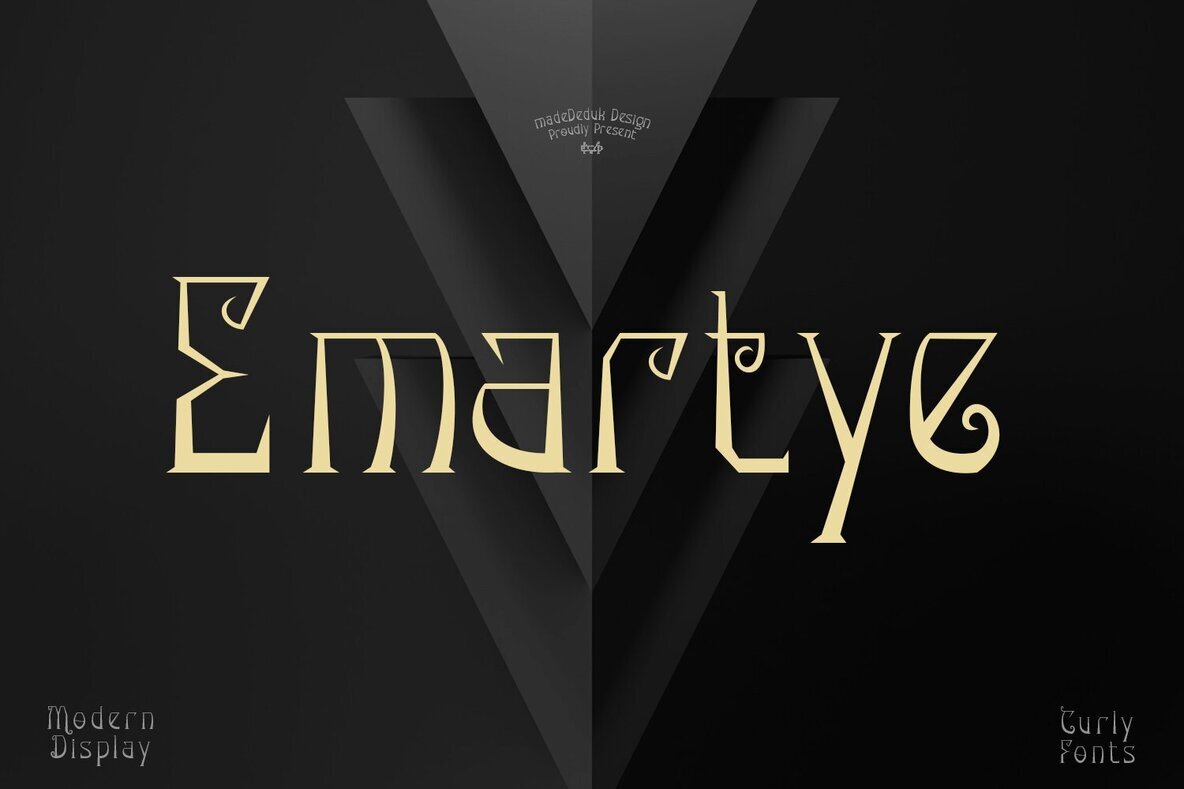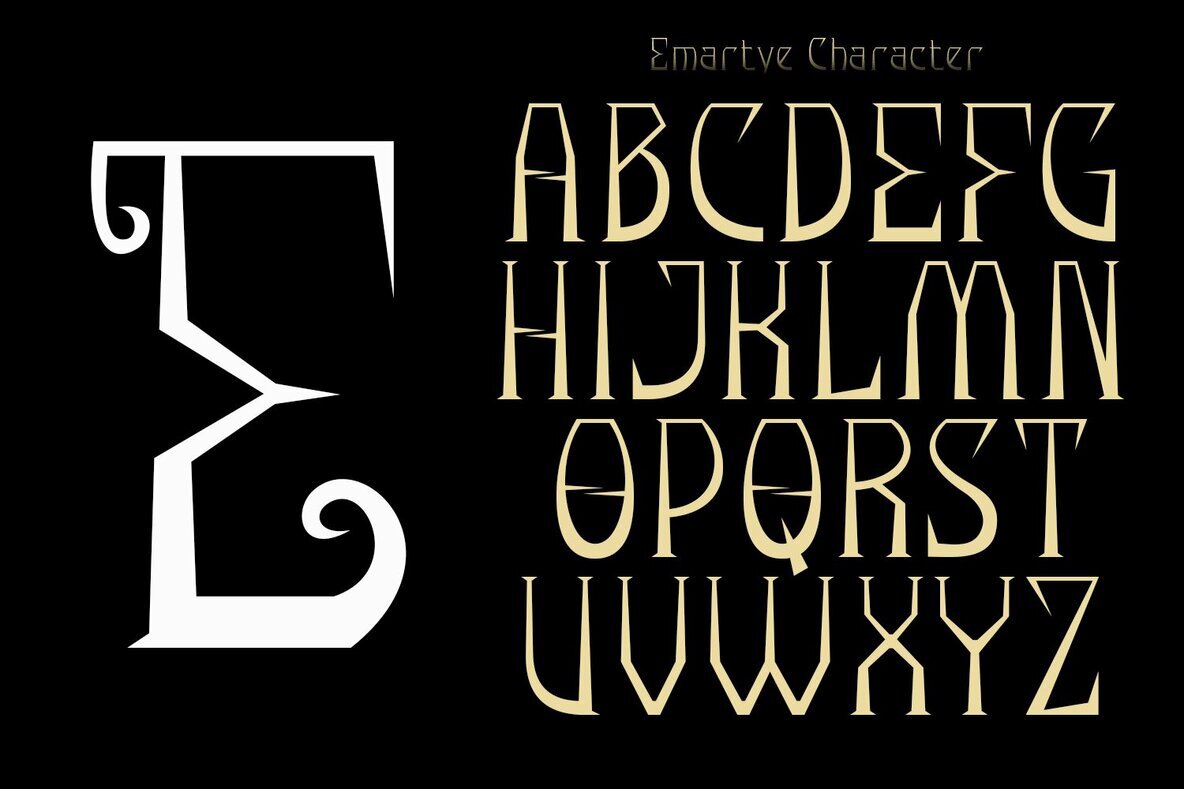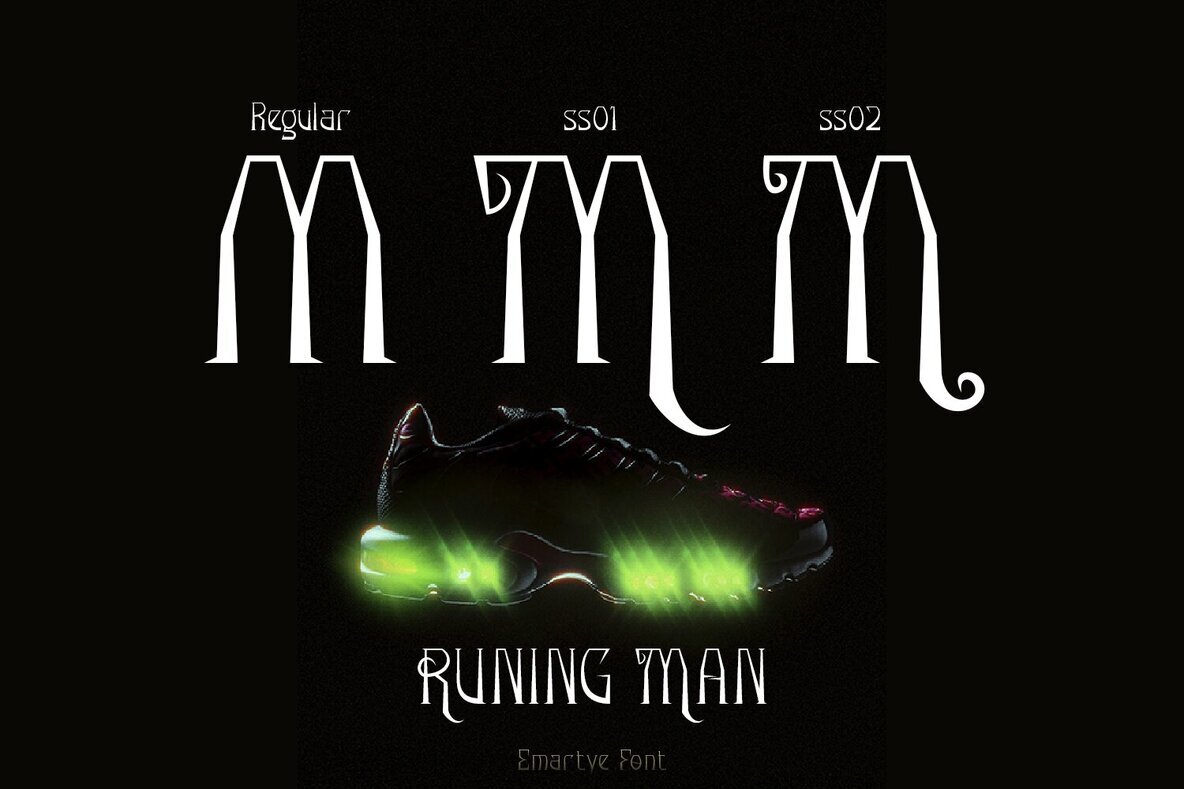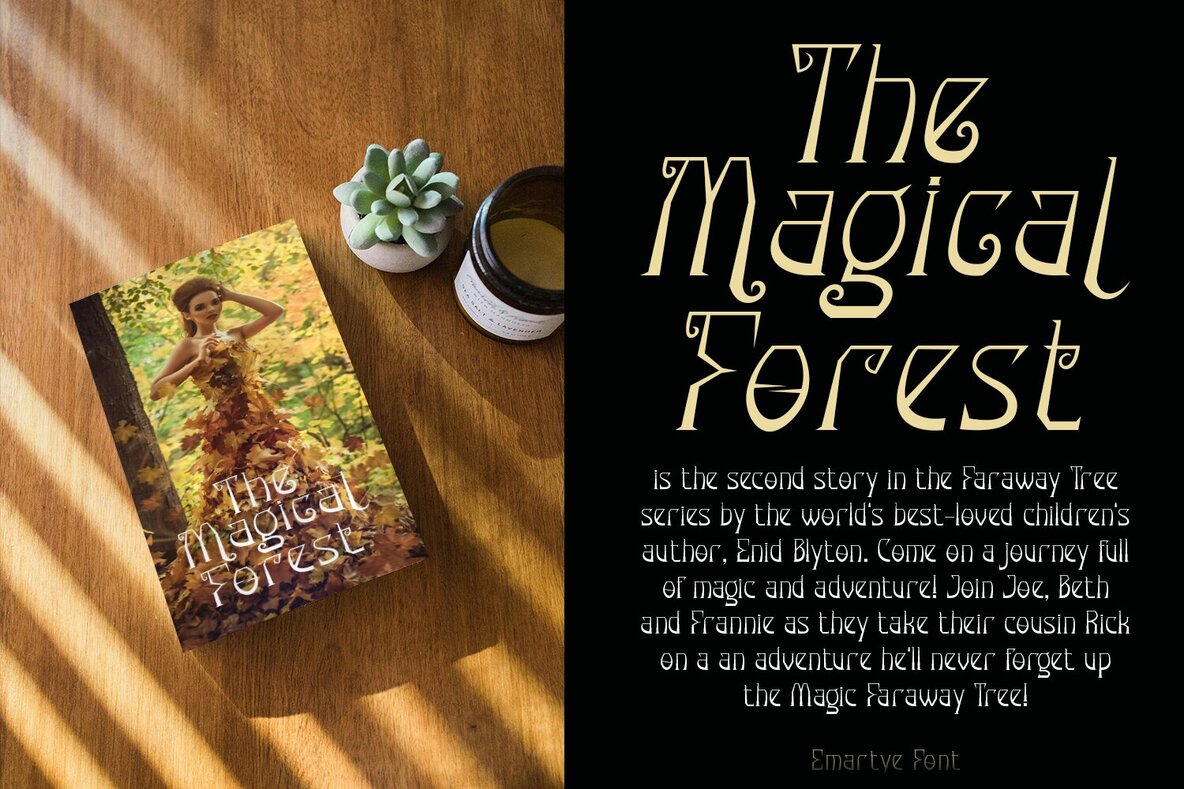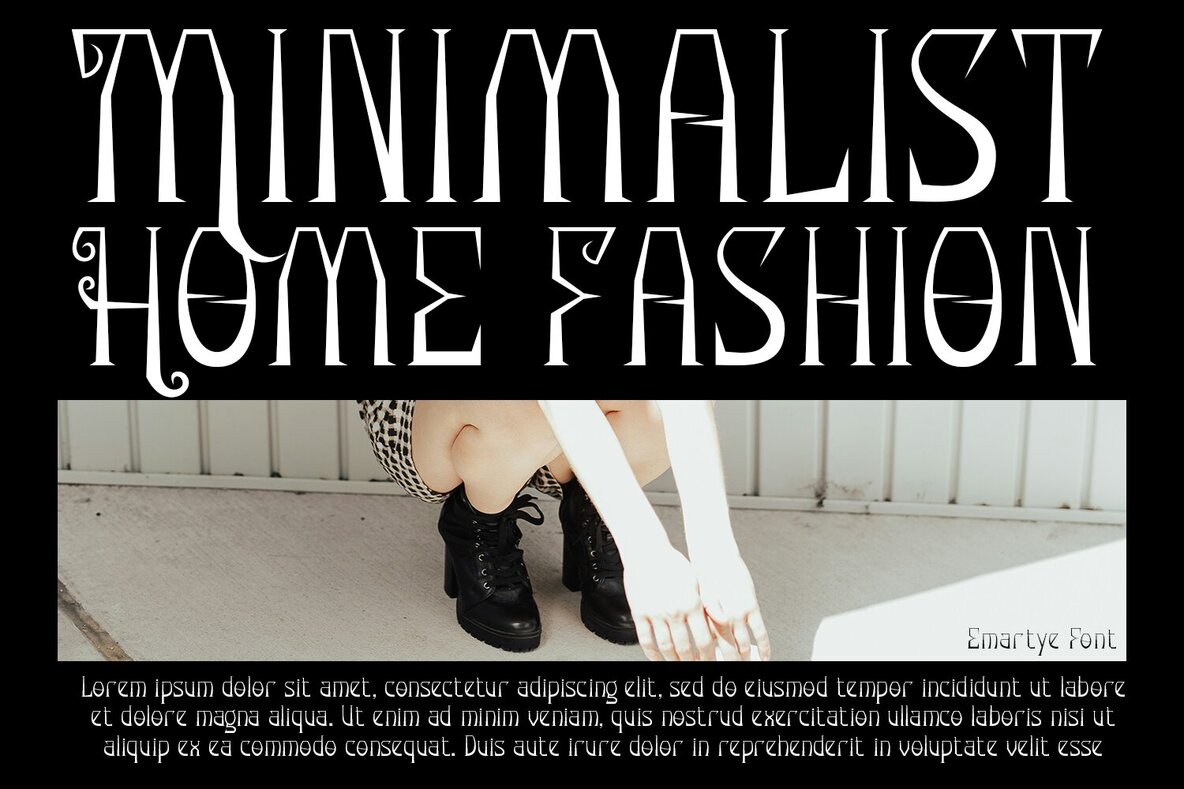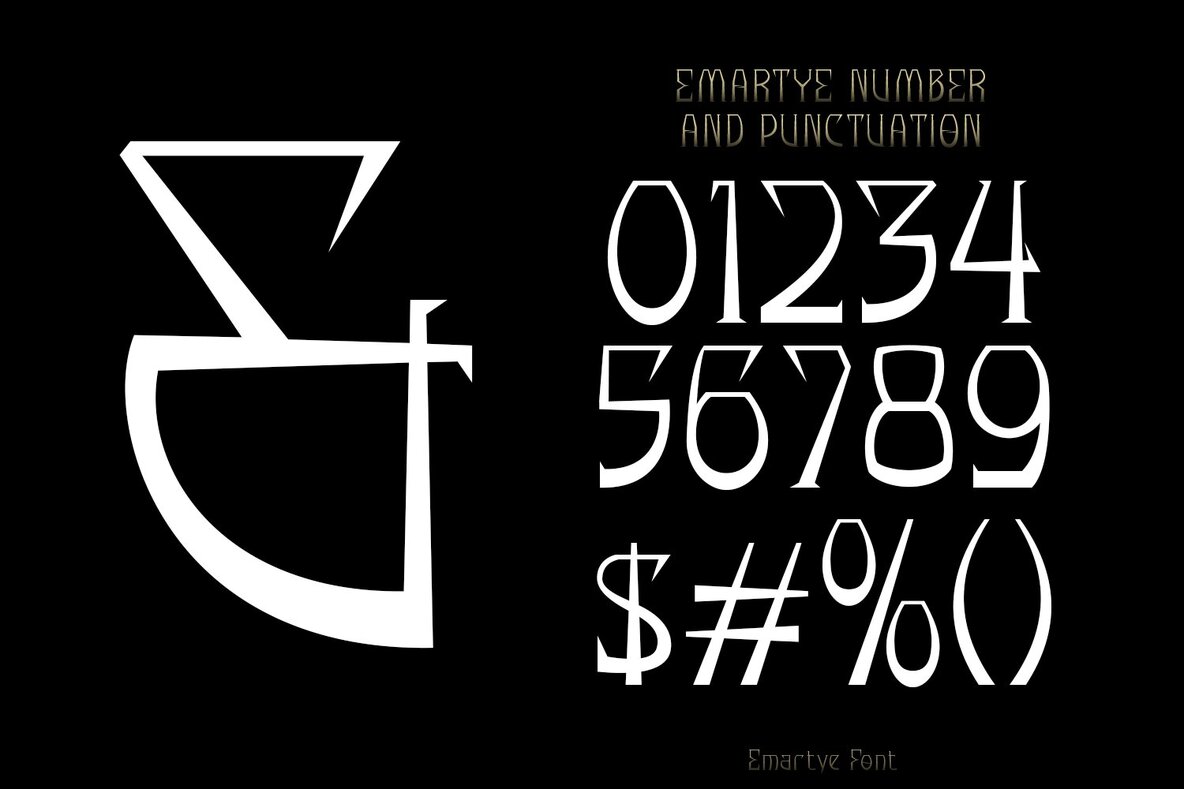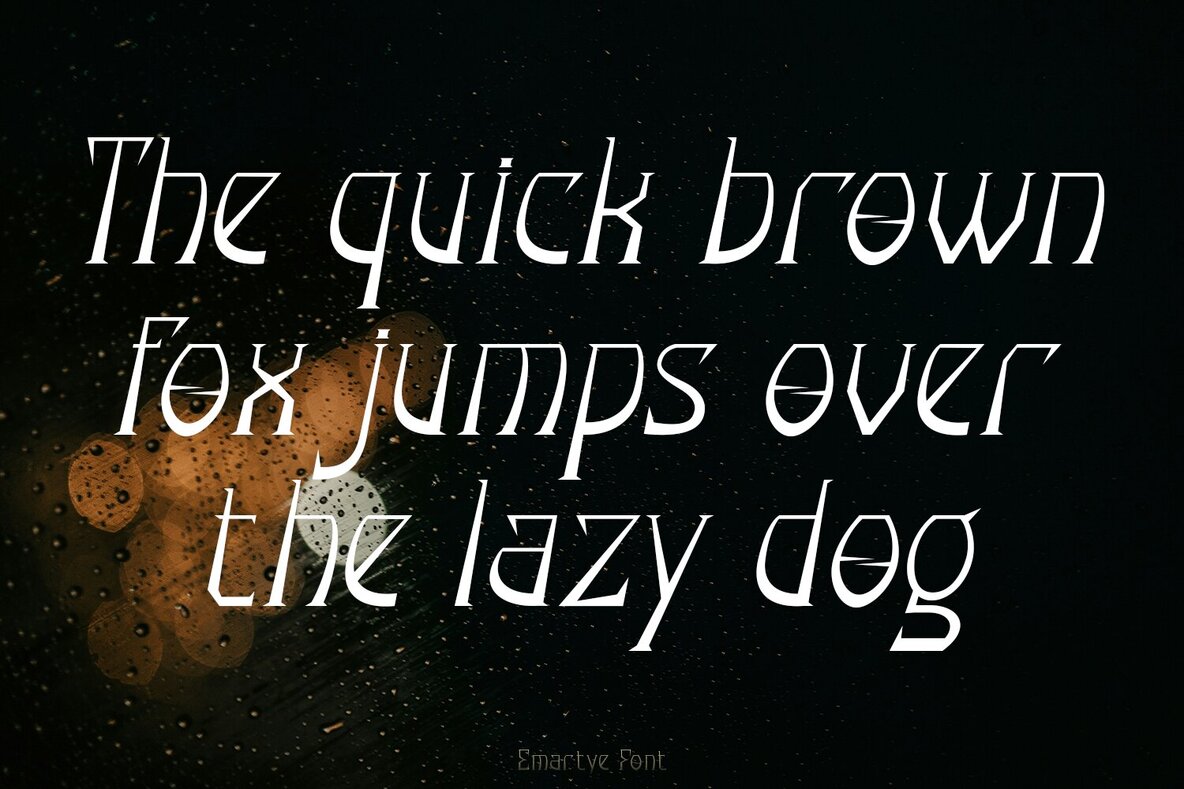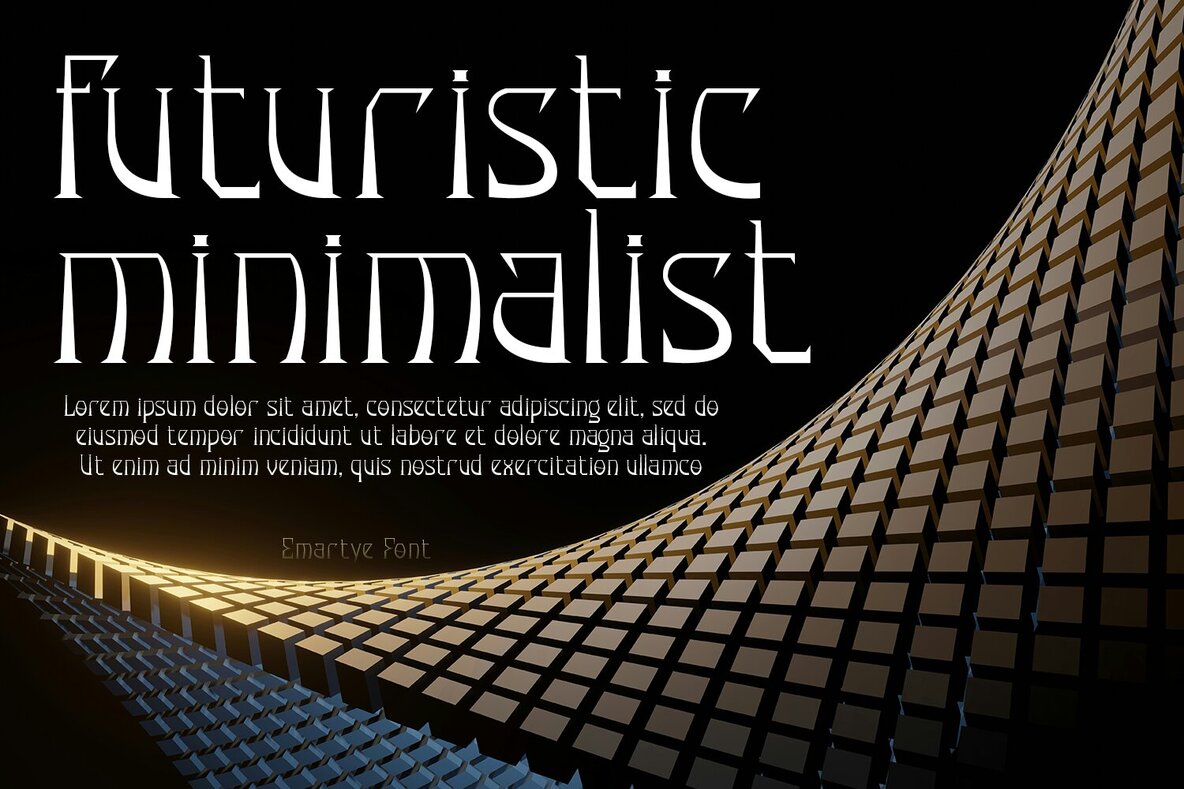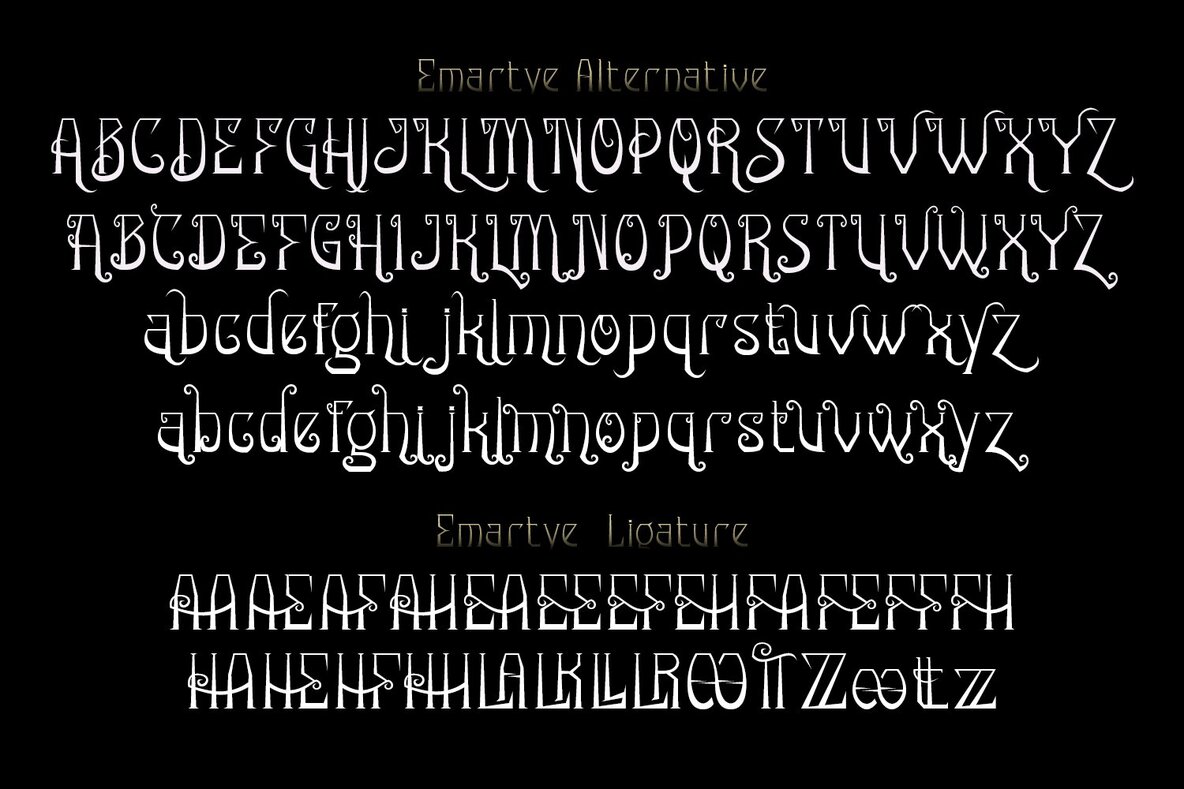
Emartye Font
Emartye is a modern and curly display font that adds a robust touch to any project. Its unique design offers a fresh take on the vintage style, making it an excellent choice for enhancing the visual appeal of your design work.Emartye Display Font